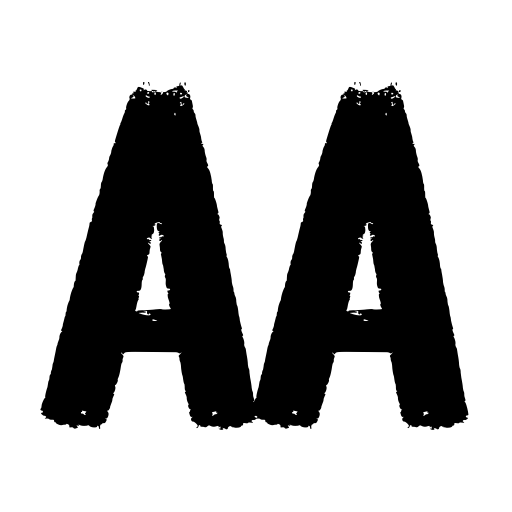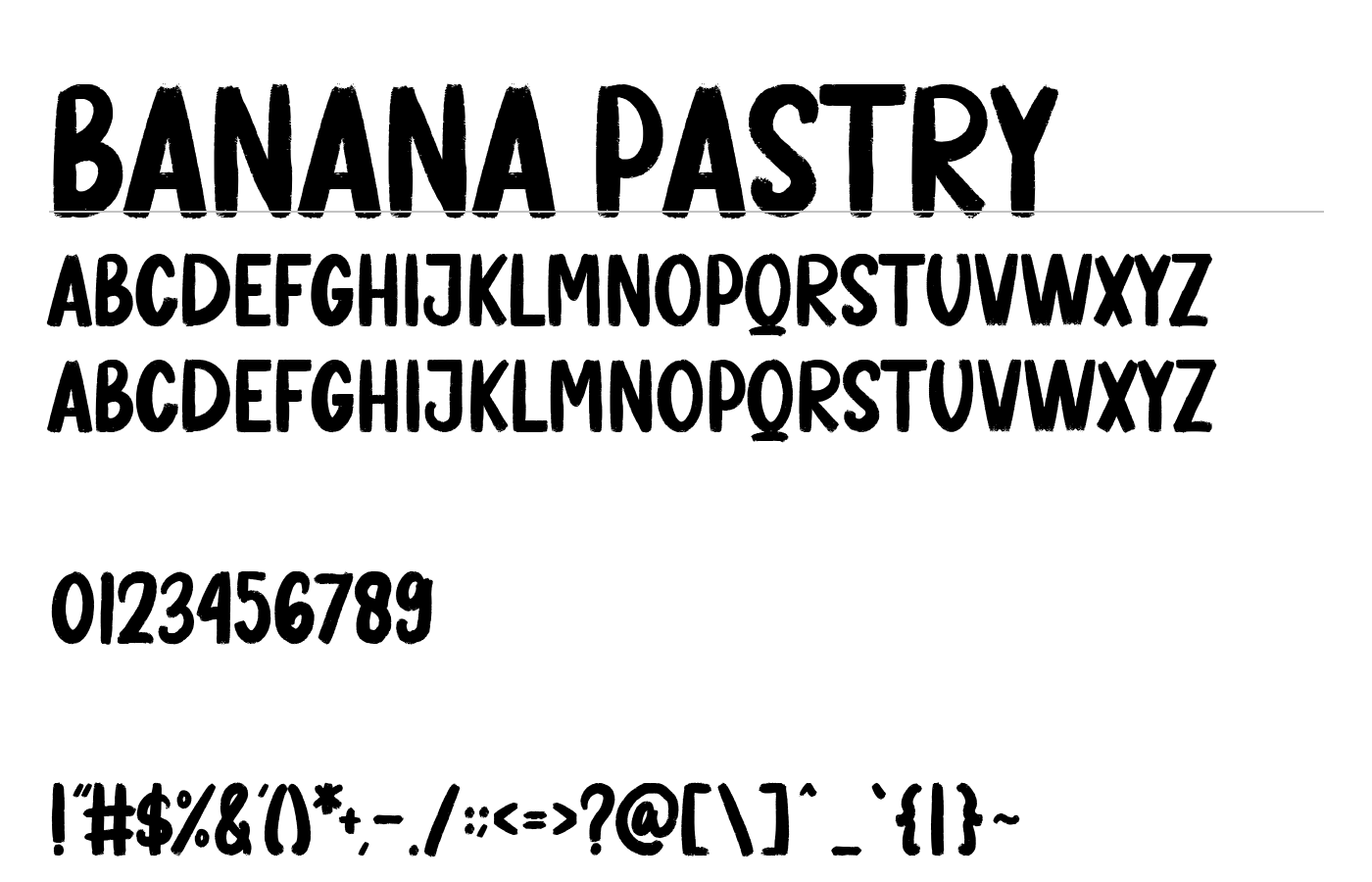
Banana Pastry is a bold and playful sans serif font with a hand-drawn, brushstroke style that gives it a lively and informal feel. Its slightly uneven, textured letterforms add a warm, approachable character, making it perfect for creative, fun, and casual branding or headline uses. This font works well for eye-catching packaging, posters, and any design that wants to convey friendliness and energy.
Banana Pastry Font